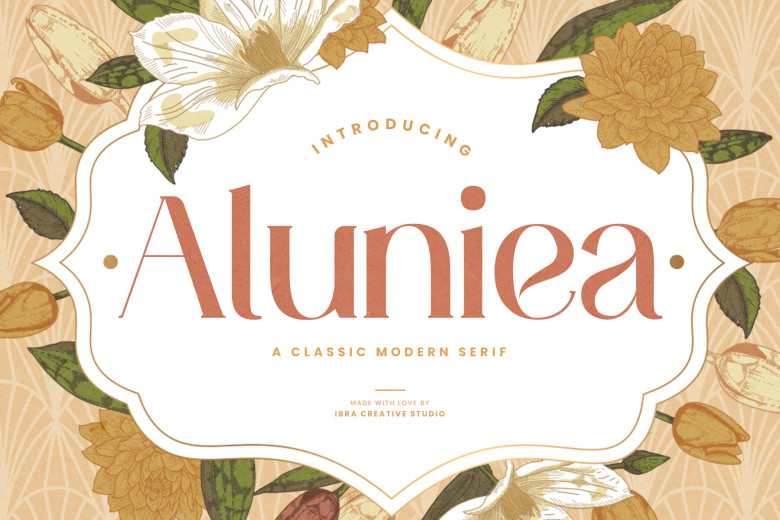
Aluniea Font
Aluniea is an elegant yet modern serif typeface, perfectly blending classic style with contemporary sensibilities. Boasting well-balanced forms, elegant strokes, and sophisticated details that provide its character, Aluniea is a sophisticated font suitable for use across various design-related applications.
Aluniea Serif Font